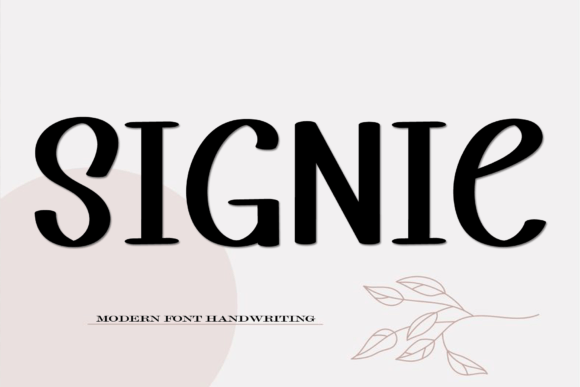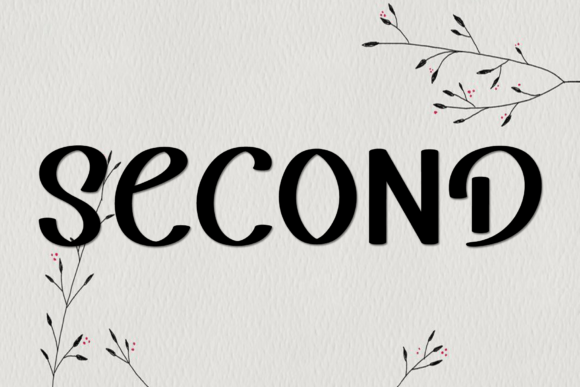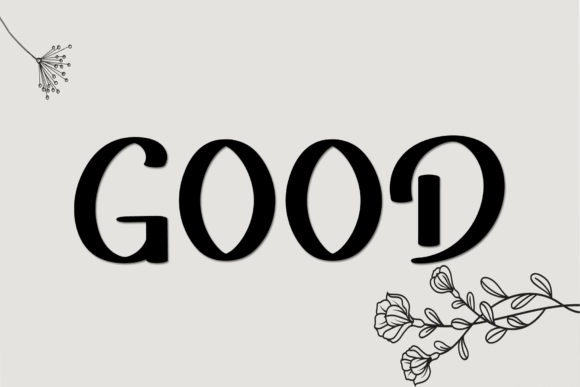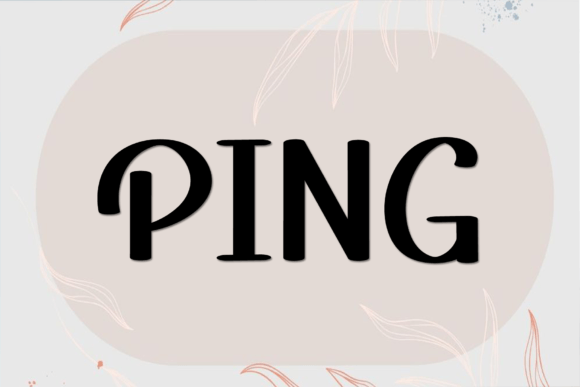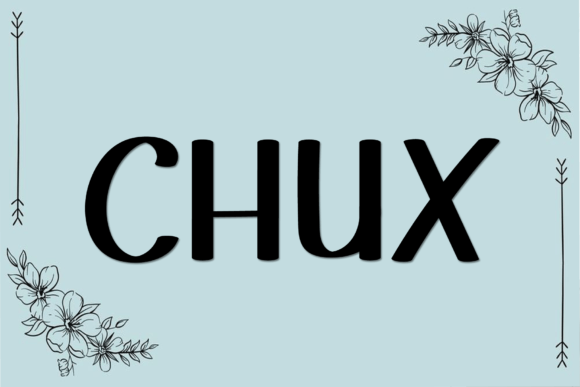
Signie Font
A Classic and Simple Handwritten Font
The Signie Font is a classic and simple handwritten typeface created with a random and freestyle design, giving it a unique, authentic feel. Its charming and casual style makes it ideal for a wide range of creative design projects. Whether you’re working on logos, headlines, branding, or social media content, the Signie Font adds a personal, handwritten touch that enhances the authenticity and character of your designs.
Perfect for Logos and Branding
For logotypes and branding projects, the Signie Font offers a versatile, approachable style. Whether you’re designing for a creative business, apparel brand, or personal brand, this font gives your brand identity a distinctive and memorable touch. Its freestyle nature ensures your logo stands out while maintaining a friendly and professional feel.
Ideal for Headlines and Posters
The Signie Font is perfect for headlines and posters. Whether you’re designing for music events, movie promotions, or gaming graphics, this font adds an eye-catching, bold element to your designs. Its playful handwritten strokes make it perfect for creating dynamic, vibrant headlines that grab attention and stand out in any creative project.
Great for Magazines, Books, and Comics
For magazines, books, and comics, the Signie Font brings a unique, artistic touch to your design. Whether you’re working on a magazine layout, comic book title, or novel cover, this font adds a personal flair to your text. Its casual and handwritten style makes your designs feel fun and inviting, perfect for both print and digital formats.
Ideal for Social Media and Websites
For social media and web design, the Signie Font offers a charming, personalized feel. Whether you’re designing for Instagram, YouTube, or a personal blog, this font adds a fresh, authentic vibe to your content. Its versatility makes it ideal for captions, headlines, quotes, and more, ensuring your social media posts capture attention and stand out.
Legible, Playful, and Adaptable
Despite its random freestyle design, the Signie Font remains legible and easy to use. Its flowing strokes are well-balanced, ensuring that your text is clear and easy to read, even for longer passages or smaller sizes. Whether you’re creating headlines, subheadings, or body text, this font strikes the perfect balance of style and clarity, making it suitable for a variety of creative applications.
Add Personality and Charm to Your Designs with Signie Font
If you’re looking for a classic, simple, and handwritten font to enhance your designs, the Signie Font is the perfect choice. Whether you’re working on logos, headlines, posters, or social media graphics, this font brings a playful, authentic touch to your work. Let the Signie Font add a personalized and charming element to your creative projects and make them stand out with style and character.